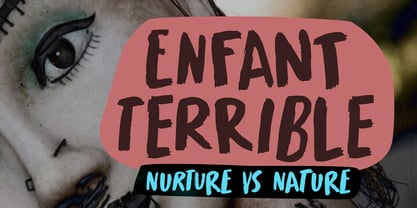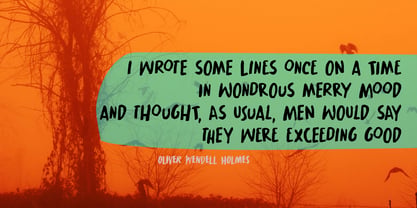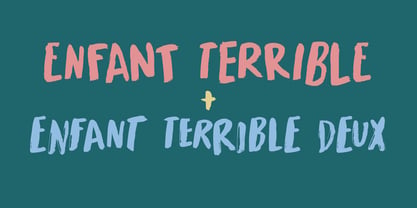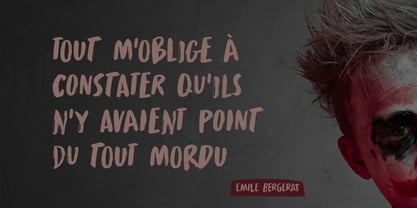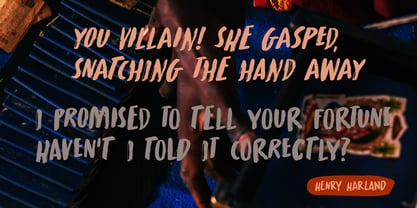
Enfant Terrible
by Hanoded
The Enfant Terrible Font Family was designed by David Kerkhoff and published by Hanoded. Enfant Terrible contains 4 styles and family package options. More about this family
Enfant Terrible doesn’t toe the line. It has its own idea of how things should be! This handmade font family embraces the beauty of imperfection—raw strokes, jagged edges, and a restless energy that refuses to sit still. Enfant Terrible feels lightly eerie, a little unpredictable, yet is undeniably clear and readable. Whether you need a font for bold, kick butt packaging, intriguing album art or expressive book covers that invite browsers to read the stories - Enfant terrible’s got you covered! Radical, yes - boring, never!
Designers: David Kerkhoff
Foundry: Hanoded
Hanoded is run by Dutchman David Kerkhoff. His fonts are a mishmash of styles, as he just creates whatever pops into his head. You will find a lot of brush fonts in his collection, as his favourite tools are brushes and Chinese ink, with cartoon style fonts and script fonts complementing his repertoire. Aside from making fonts, David occasionally guides tours in far-flung places, renovates his '30's house and tries reasoning with his wife and (teenage) kids. Not an easy task!